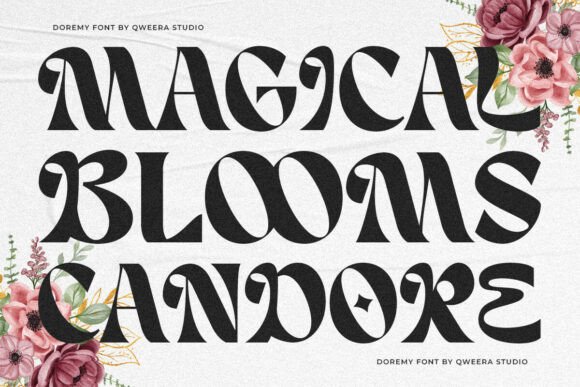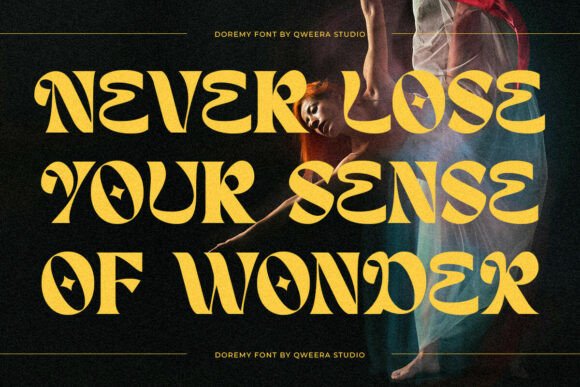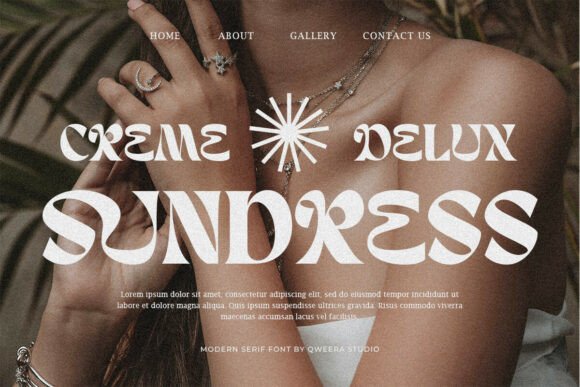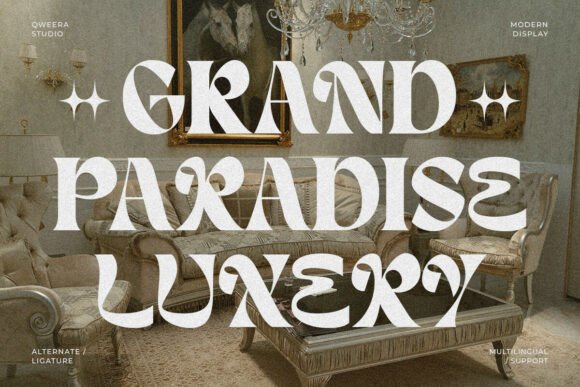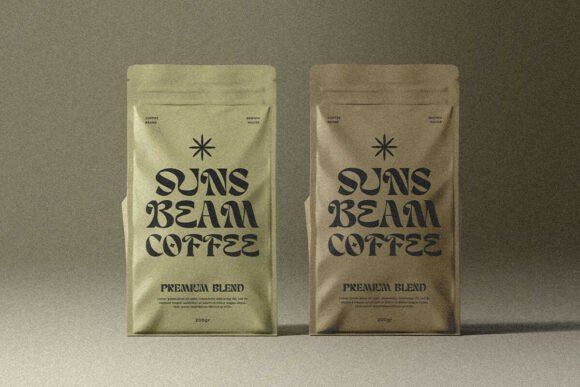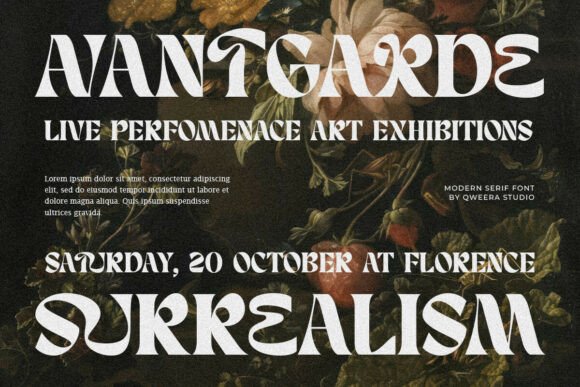
Doremy Font: Elevate Your Designs with Modern Elegance
In the world of typography, fonts play a crucial role in conveying the tone and personality of a design. For designers and crafters seeking a modern and bold impression, Doremy Font is an excellent choice. This display serif font is designed to make a statement, offering a unique blend of elegance and dynamism that can elevate any visual project.
What is Doremy Font?
Doremy is a display serif font that boasts a modern and bold aesthetic. Its sleek lines, refined curves, and distinctive features make it an ideal choice for designs that require a touch of sophistication. The font comes in three versatile versions: regular, italic, and outline, providing flexibility and uniqueness to every design.
Key Features of Doremy Font
Doremy Font is equipped with a range of features that make it an excellent choice for designers and crafters. Some of its key features include:
- Distinctive Alternates: Doremy offers a variety of alternate characters, allowing designers to add a unique touch to their designs.
- Ligatures: The font features a range of ligatures, which can be used to create a more fluid and natural look.
- Multiple Weights: Doremy comes in regular, italic, and outline versions, providing flexibility and versatility.
Use Cases for Doremy Font
Doremy’s versatility and elegance make it suitable for a wide range of design projects, including:
- Branding Projects: Use Doremy to create a bold and memorable brand identity.
- Editorial Design: Add a touch of sophistication to your editorial designs, such as magazines, newspapers, and books.
- Poster Design: Create eye-catching posters with Doremy’s bold and elegant characteristics.
Benefits of Using Doremy Font
By incorporating Doremy Font into your designs, you can:
- Elevate Your Designs: Add a touch of modern elegance to your designs.
- Stand Out from the Crowd: Doremy’s unique features and bold aesthetic will help your designs stand out.
- Increase Versatility: With multiple weights and alternate characters, Doremy can be used across a range of design projects.
Tips for Using Doremy Font
To get the most out of Doremy Font, consider the following tips:
- Experiment with Alternates: Try out different alternate characters to add a unique touch to your designs.
- Pair with Other Fonts: Combine Doremy with other fonts to create a visually appealing contrast.
- Adjust Font Size: Experiment with different font sizes to create a bold and eye-catching design.
| Font Name | Doremy Font |
| Author | Qweera Studio |
Doremy Font is an excellent choice for designers and crafters seeking a modern and bold display serif font. With its elegant and dynamic characteristics, Doremy can elevate any design project, from branding and editorial design to poster design. By incorporating Doremy into your designs, you can add a touch of sophistication and uniqueness, setting your work apart from the crowd.
Get Ready to Elevate Your Designs with Doremy Font